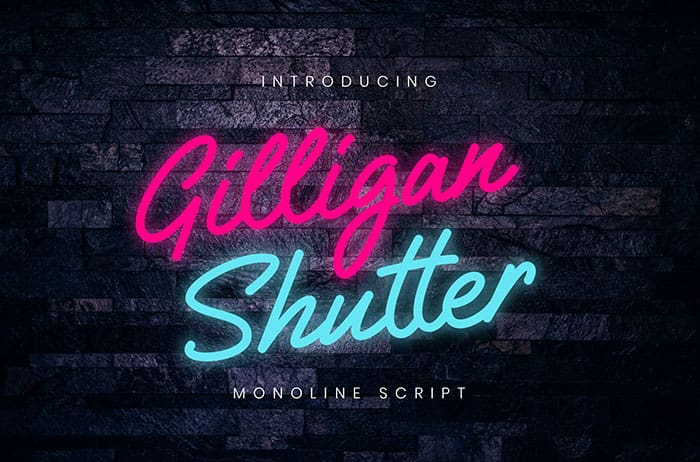
Gilligan Script Font
Gilligan Script Font is a sophisticated signature monoline bold collection that gives natural lettering for your latest project. Thanks to Creatype Studio for sharing this font! Take a look at this portfolio for more of his stunning fonts.